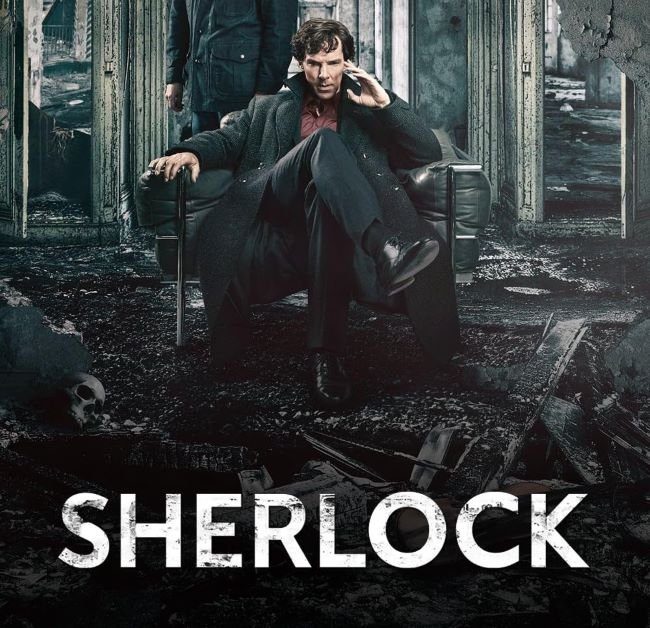
Sherlock Font
Sherlock font makes the same argument as the BBC series itself: that the world’s most famous fictional detective, transplanted to contemporary London, requires a typographic identity that is as sharp, minimal, and analytically confident as Benedict Cumberbatch’s portrayal. The title lettering uses a clean, elegant sans-serif with excellent proportions and a modern sensibility that feels simultaneously timeless and of-the-moment — not unlike 221B Baker Street with good broadband. It communicates intelligence without ostentation, precision without coldness, and a certain quiet self-assurance that doesn’t need to announce itself loudly because it knows you’re already paying attention. The freely available Sherlock Font gives designers access to this refined, intellectual sans-serif character.